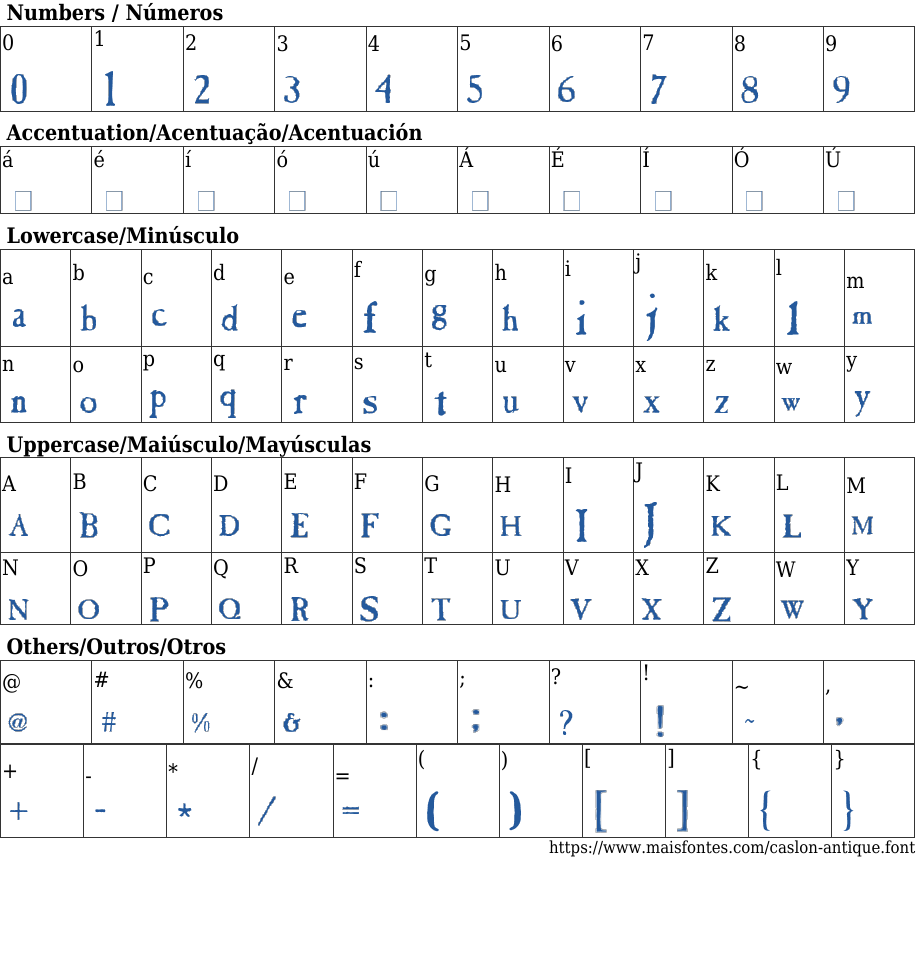
Caslon Antique Font Download . This caslon antique vintage serif font was designed by berne nadall in the year 1894. View sample text, character map, user rating and review for caslon antique regular. Caslon antique is a decorative. Originally called “fifteenth century” the name was changed by barnhart. Download caslon antique regular for free. Free download of caslon antique font family with 2 styles. Released in 2006 by alan carr and licensed for personal and. Download caslon antique font family · free for commercial use · from wikipedia: Caslon antique is a decorative american typeface that was designed in 1894 by berne nadall. It was originally called “fifteenth century”, but was renamed “caslon antique”.
It was originally called “fifteenth century”, but was renamed “caslon antique”. Free download of caslon antique font family with 2 styles. Caslon antique is a decorative. Caslon antique is a decorative american typeface that was designed in 1894 by berne nadall. Originally called “fifteenth century” the name was changed by barnhart. View sample text, character map, user rating and review for caslon antique regular. Released in 2006 by alan carr and licensed for personal and. Download caslon antique font family · free for commercial use · from wikipedia: This caslon antique vintage serif font was designed by berne nadall in the year 1894. Download caslon antique regular for free.
Caslon Antique Font Download Caslon antique is a decorative american typeface that was designed in 1894 by berne nadall. Originally called “fifteenth century” the name was changed by barnhart. View sample text, character map, user rating and review for caslon antique regular. It was originally called “fifteenth century”, but was renamed “caslon antique”. Free download of caslon antique font family with 2 styles. This caslon antique vintage serif font was designed by berne nadall in the year 1894. Download caslon antique font family · free for commercial use · from wikipedia: Caslon antique is a decorative american typeface that was designed in 1894 by berne nadall. Download caslon antique regular for free. Caslon antique is a decorative. Released in 2006 by alan carr and licensed for personal and.